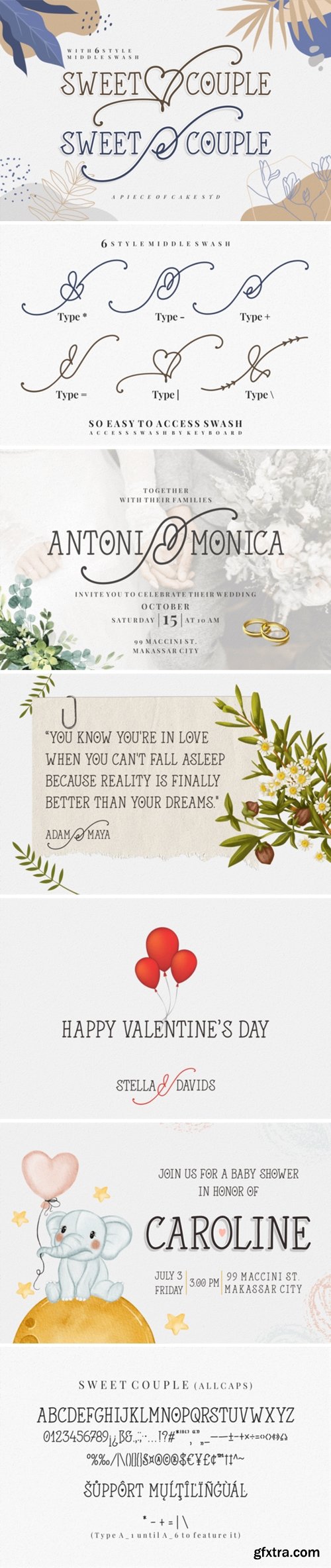
Sweet Couple Font
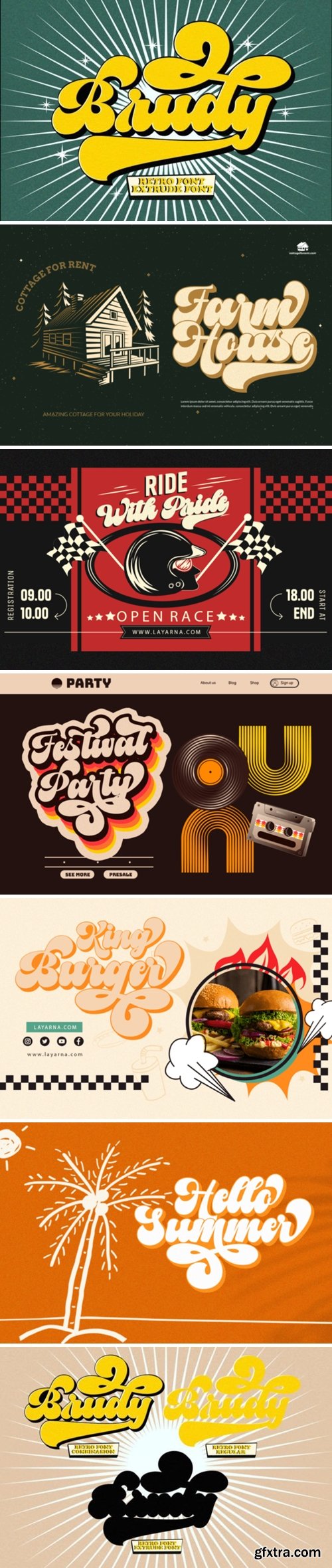
Brudy Font
Vintage Retro Font – Brudy is an urban retro font with the style of logotype lettering. It was created to help you design a logotype or lettering style for your Brand or your clients. This font is PUA encoded which means you can access all of the amazing glyphs and ligatures with ease!
Vintage Retro Font - Brudy is an urban retro font with the style like a logotype lettering. was created to help you designing logotype or lettering style for your Brand or your clients. it has an extensive lingual support, covering European and Asian Latin scripts. The font contains all characters you'll ever need, including all punctuation and numbers.